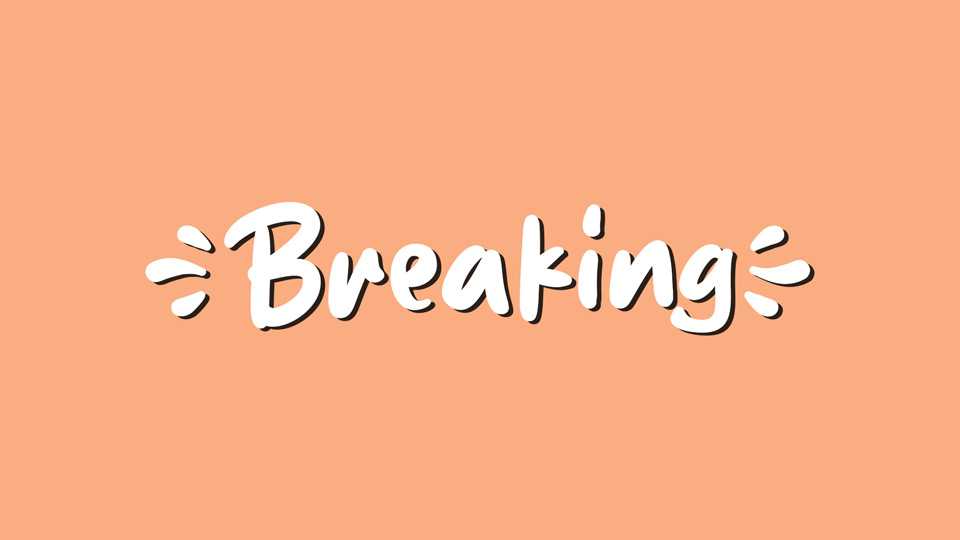
Download Breaking font, a smooth and sweet handwritten typeface that will add a charming, natural touch to any projects. Handcrafted with care, Breaking font is well suited to create everything from wedding invitations to logos – all with an authentic feel.